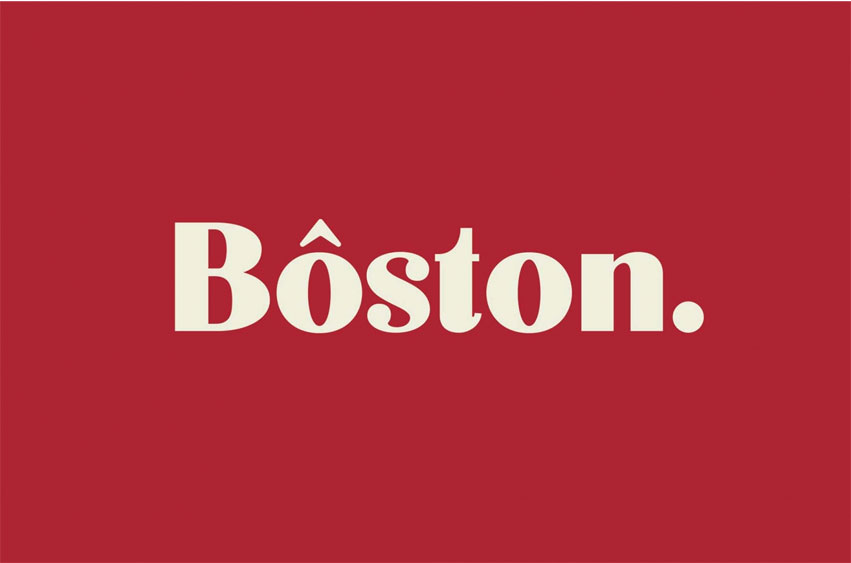
Boston Font
Boston Font You might want to travel to Cuba or to Iceland, but there will always be those small nooks that you always want to pay a visit to: Lismore town, Beirut City, and today, Boston. Presented in both OTF and TTF format, Boston is a modern typeface we created ourselves for personal and commercial use.
Balanced curves are met with thick spines and poised stems that are evident in both uppercase and lowercase characters. Explore your abilities and set yourself no boundaries with tools that offer no restrictions.
Present your poetic texts set against engaging backgrounds to spread them among fans or go for aesthetic pleasure and use the font for posters, flyers, and different types of cards. Branding designs are also welcome since you can use Boston for online presentations and applications that showcase the personality of your brands and the products and services offered.